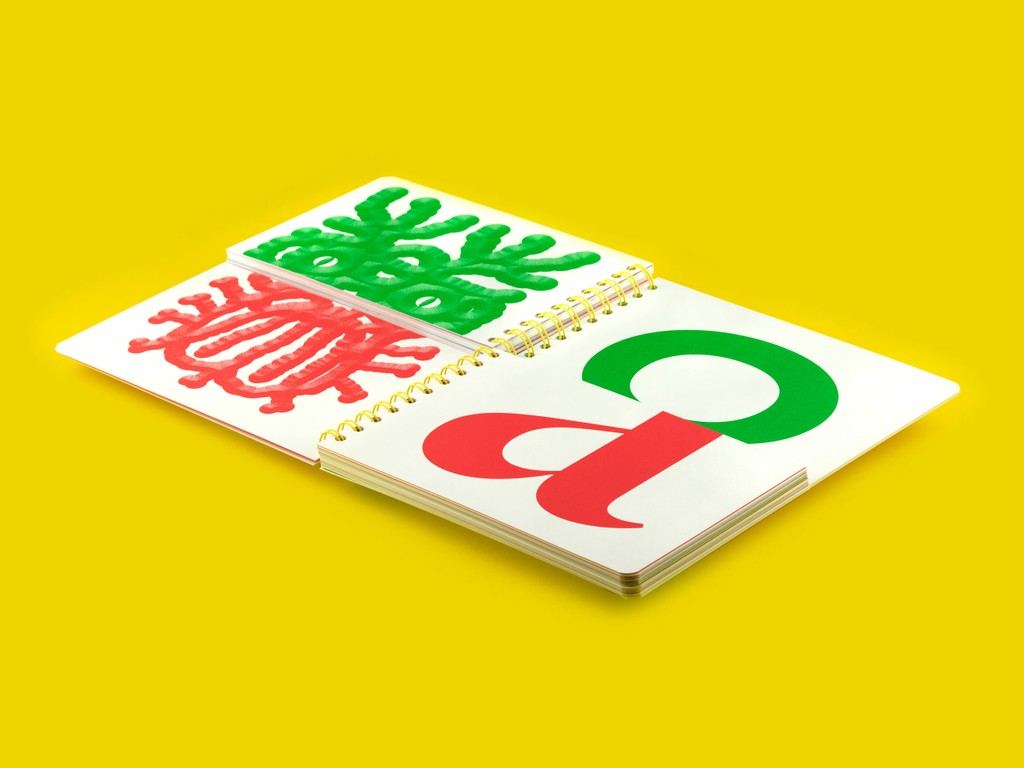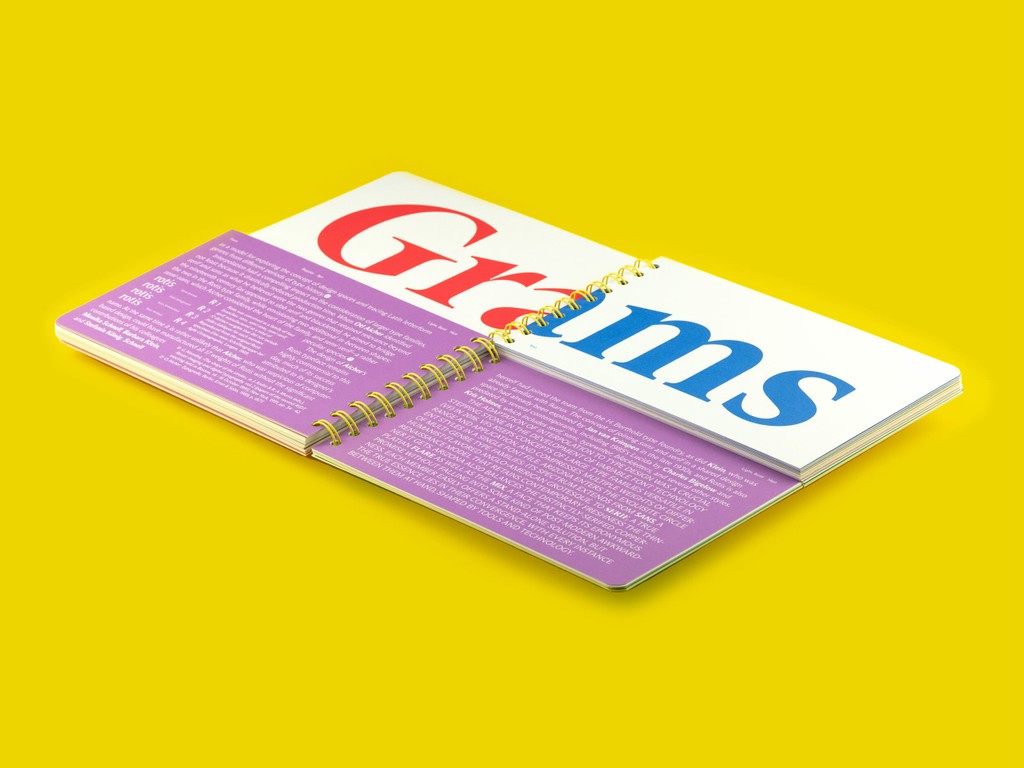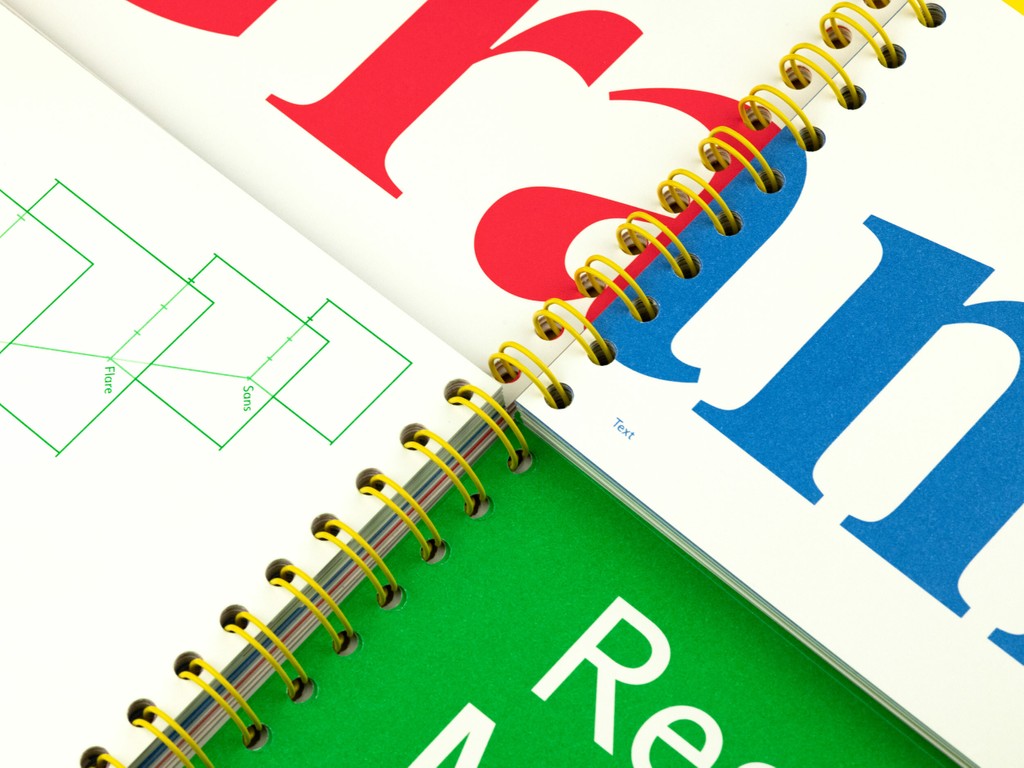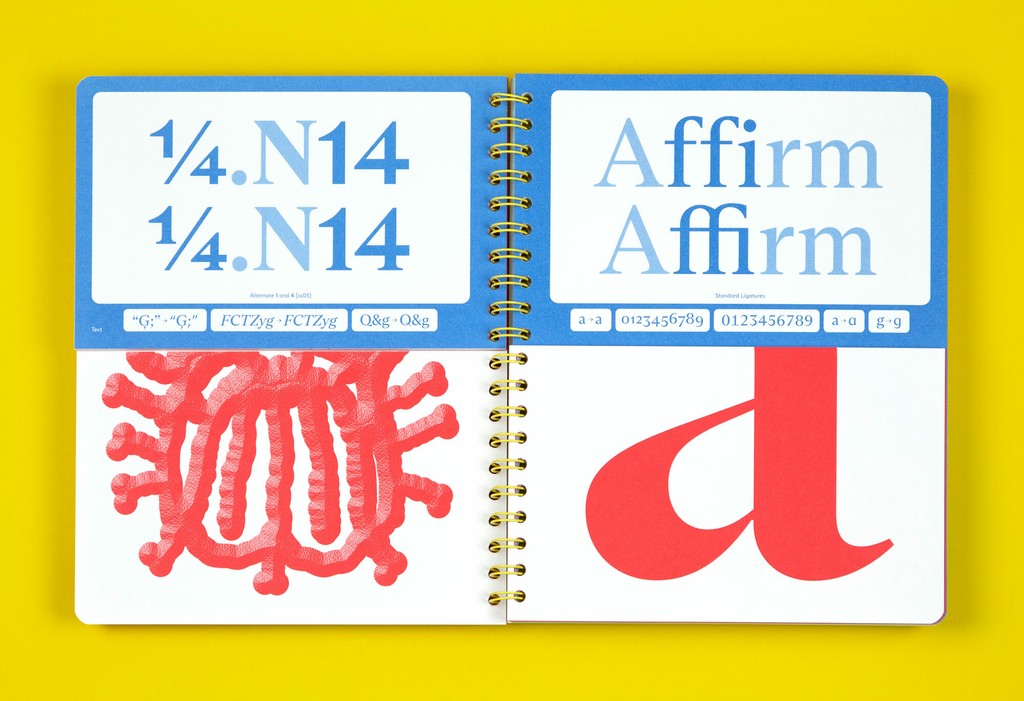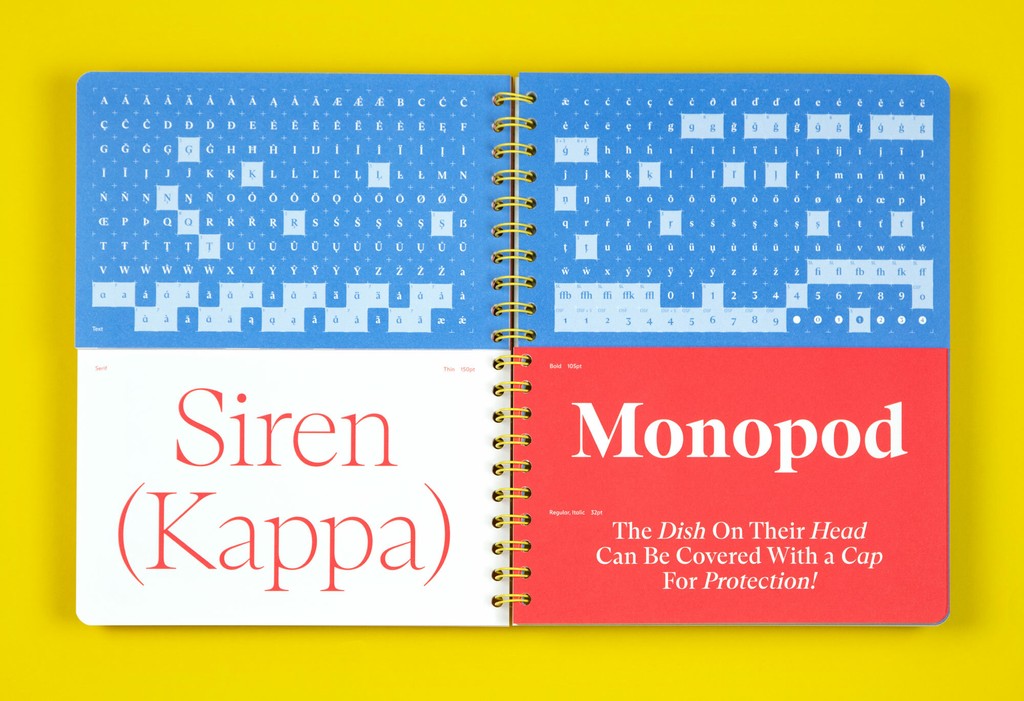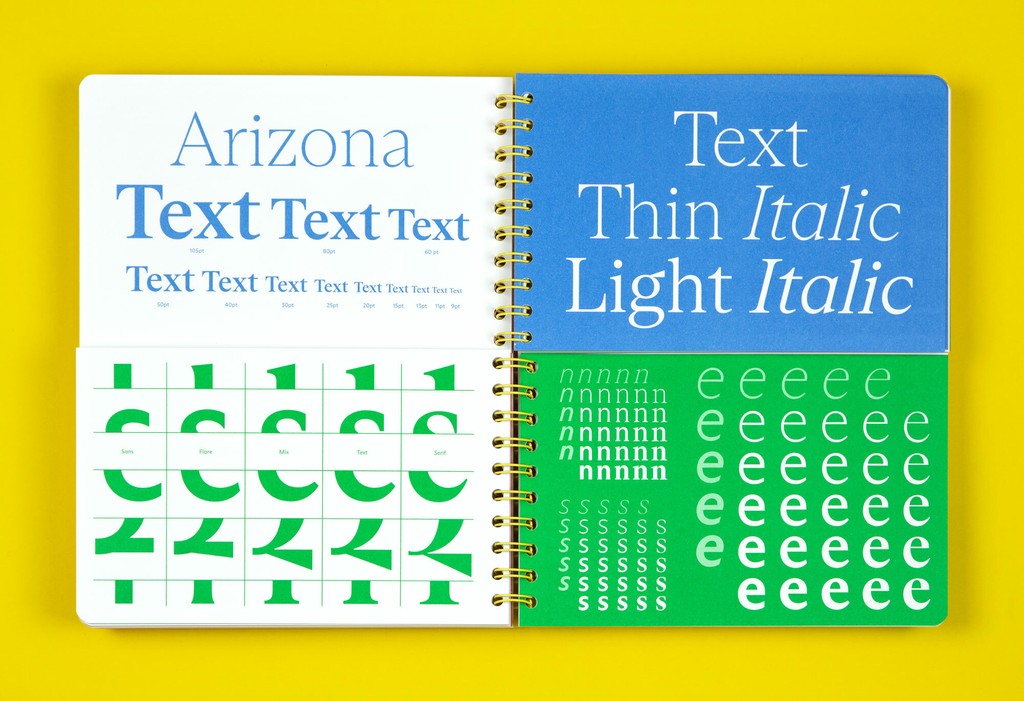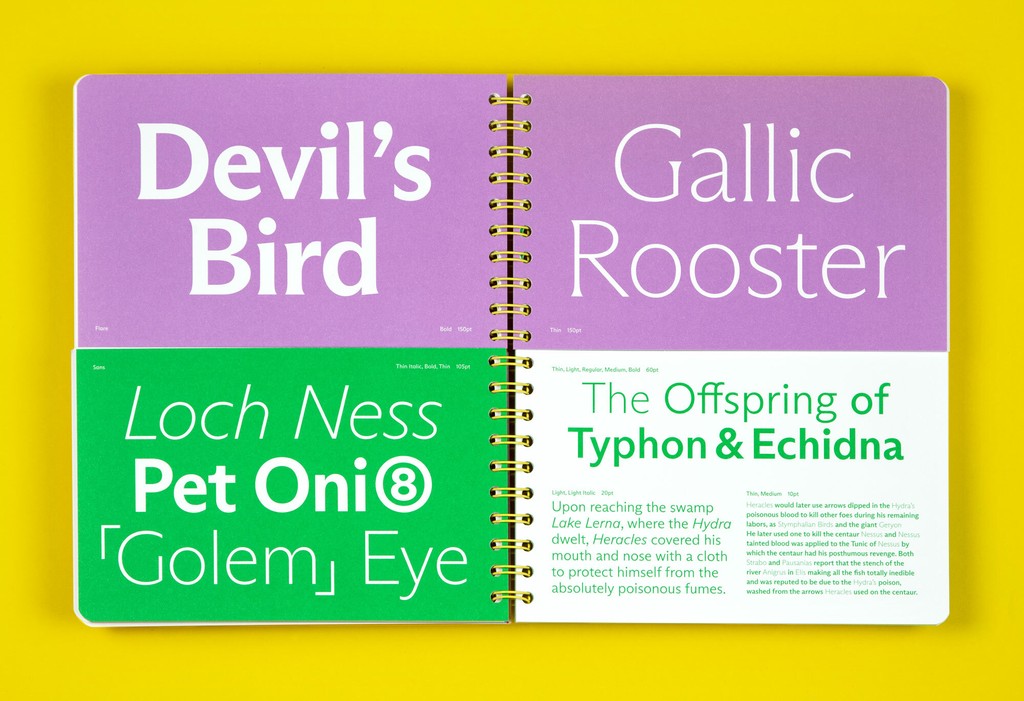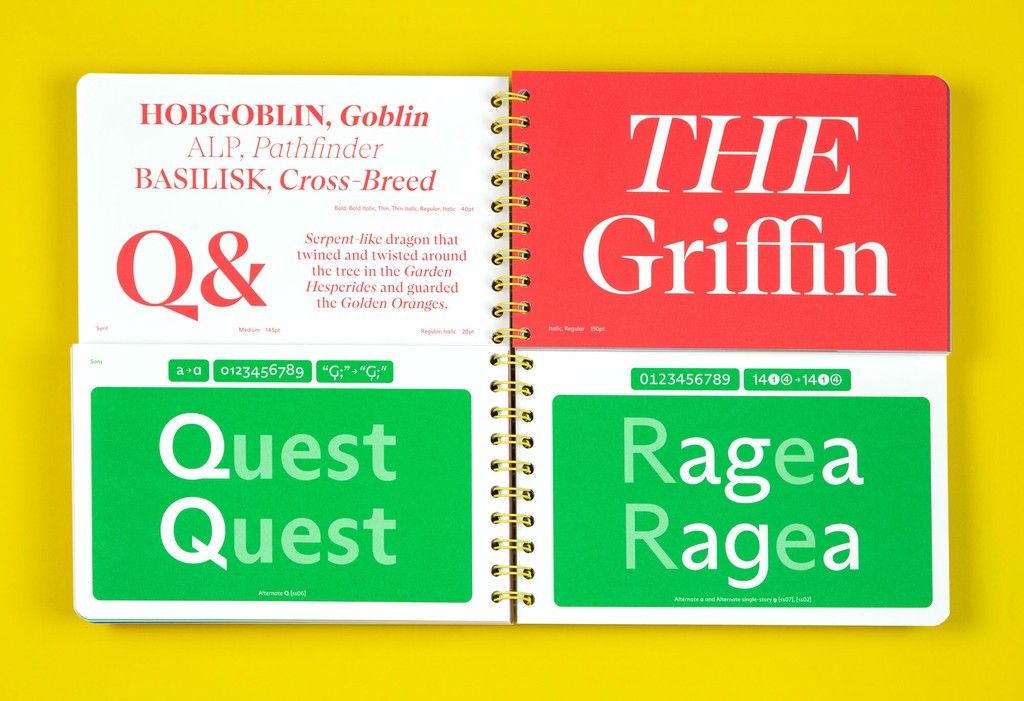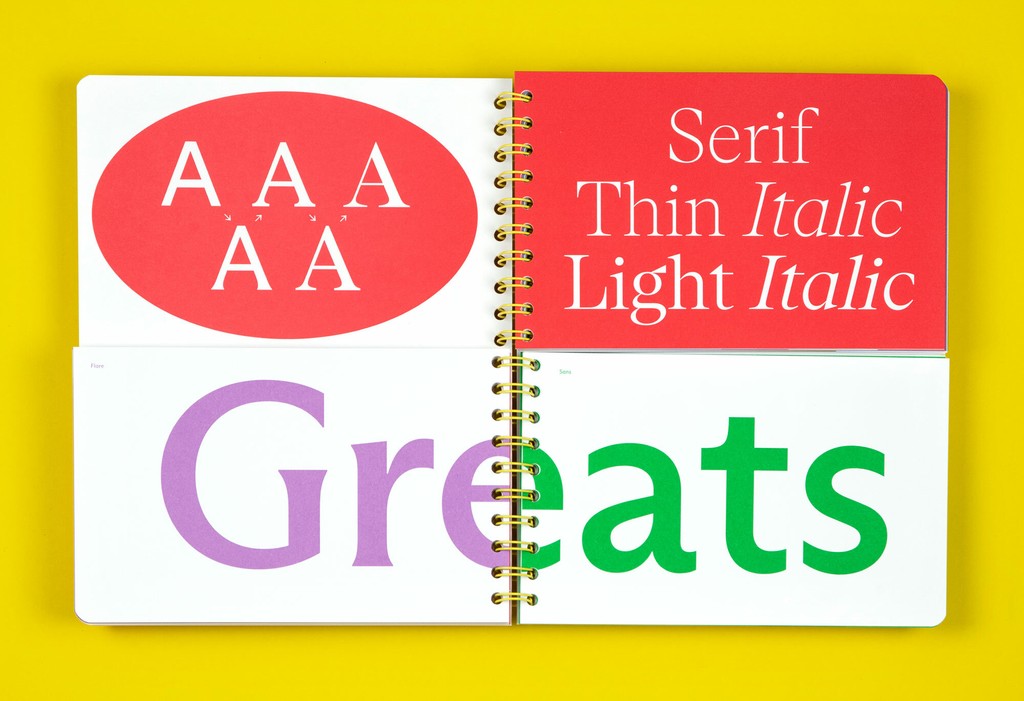
The Arizona Type Specimen
The Arizona Type Specimen is a five color, split-page, spiral-bound showcase of ABC Arizona.
Designed by Elias Hanzer, ABC Arizona is the first ever sans-to-serif Variable Font that packages its five looks — Serif, Text, Mix, Flare, and Sans — into one single file. This specimen celebrates Arizona’s countless combinations through its split structure. You can mix and match the half pages to discover the typeface family’s vast system.
Specimen design by Hanzer Liccini
ABC Arizona by Elias Hanzer
Illustrations by Célestin Krier
Essay “Tools and Shapes” by Ferdinand Ulrich
Published by Dinamo Editions